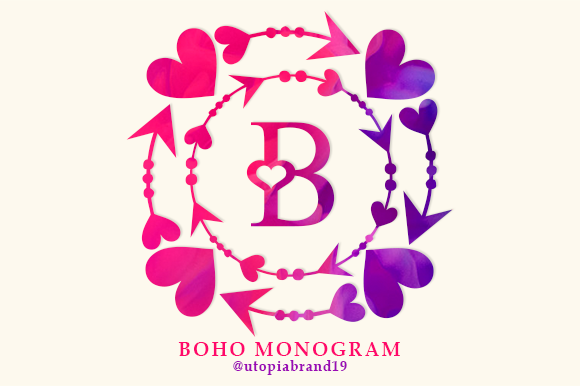
The Boho Monogram Font: A Romantic Touch for Your Designs
I’ll never forget the moment I stumbled upon the Boho Monogram font. I was working on a wedding invitation project for a client, and I was struggling to find the perfect font that would capture the romantic and whimsical feel she was looking for. As soon as I saw Boho Monogram, I knew I had found the one. Its unique and decorative style instantly elevated my design, and my client was thrilled with the result. In this article, I’ll share with you why I love Boho Monogram, its features, and how to make the most of it in your designs.
A Personal Review of Boho Monogram
- ✨ Romantic and whimsical feel that’s perfect for wedding invitations, love letters, and other special occasions
- ✅ Unique and decorative monogram style that adds a touch of elegance to any design
- 💕 Support for OpenType features, glyphs, and stylistic alternates, making it versatile and customizable
- 🎨 Beautifully crafted to work well with a variety of design styles, from bohemian to vintage
While Boho Monogram is an amazing font, there are a few things to keep in mind:
- 🤔 Some characters may not work well in smaller font sizes, so it’s best to use it at larger sizes (20pt or higher)
- ⚠️ Limited support for non-English characters, so it’s best to use it for English-based designs
Boho Monogram was inspired by the bohemian lifestyle and the beauty of handwritten typography. The designer wanted to create a font that would capture the essence of free-spirited creativity and romance. With its unique monogram style and decorative features, Boho Monogram is perfect for designers who want to add a touch of whimsy and elegance to their designs.
Q: What is Boho Monogram?
A: Boho Monogram is a romantic and unique decorative font that’s perfect for wedding invitations, love letters, and other special occasions.
Q: Is Boho Monogram easy to read?
A: Boho Monogram is a decorative font, so it’s best used at larger font sizes (20pt or higher) to ensure readability.